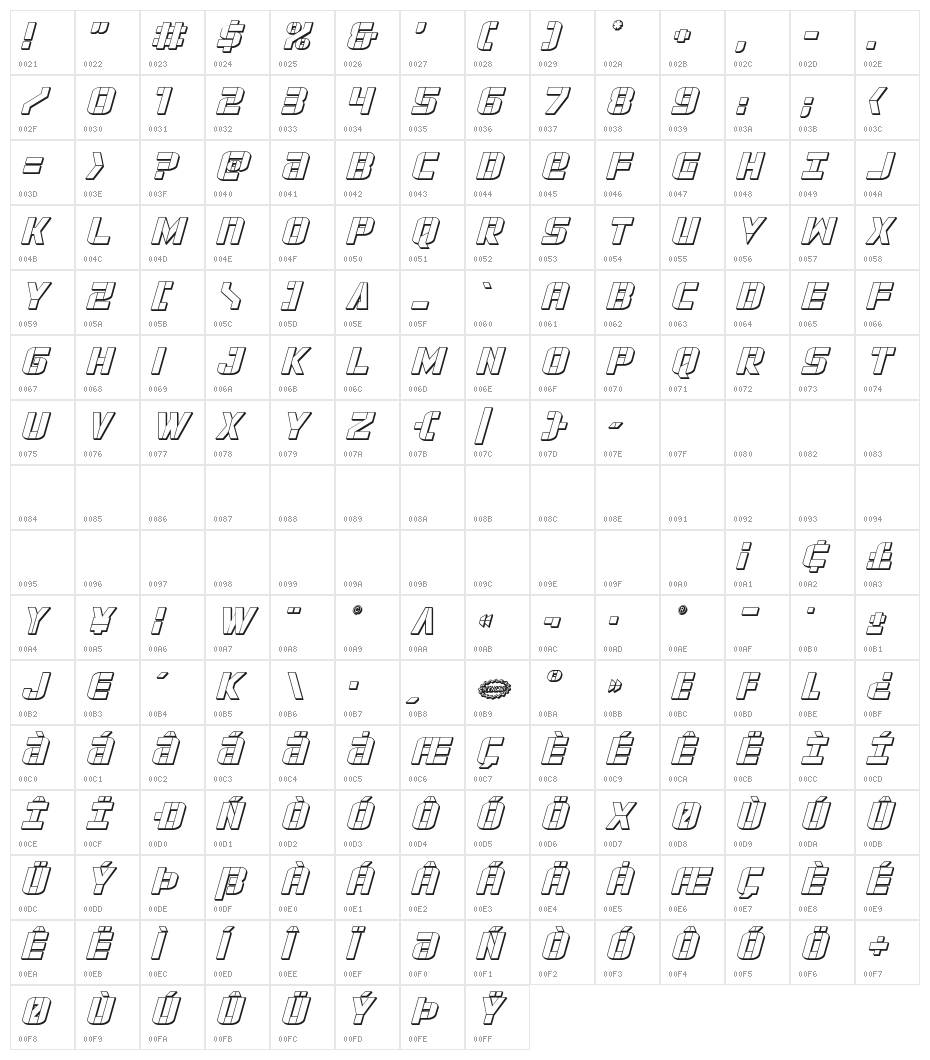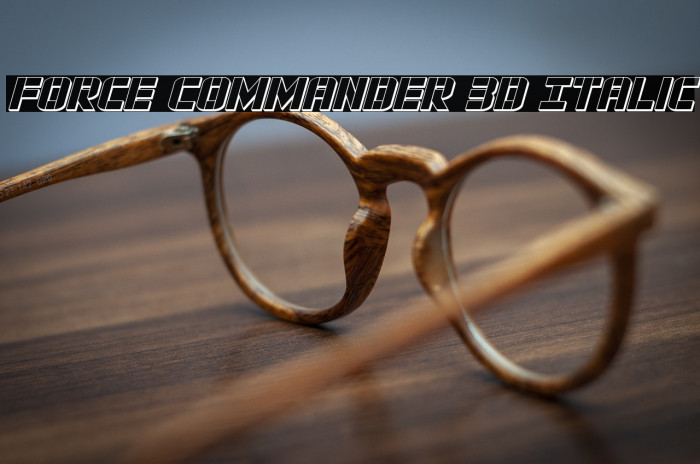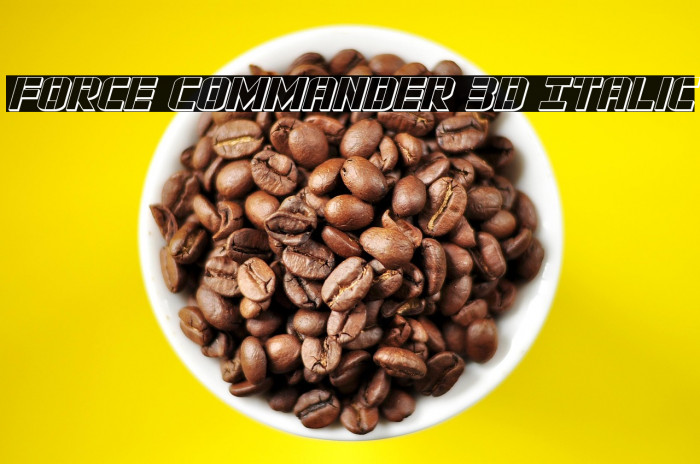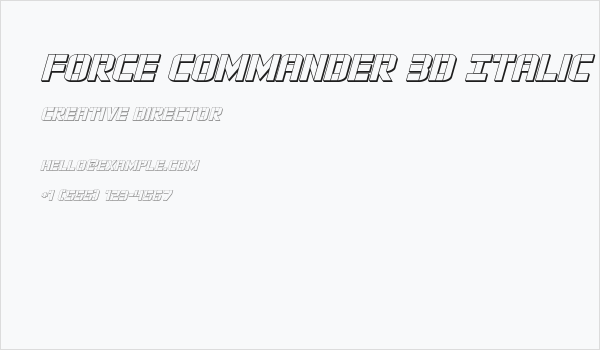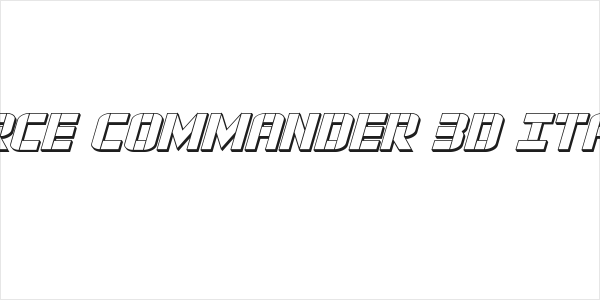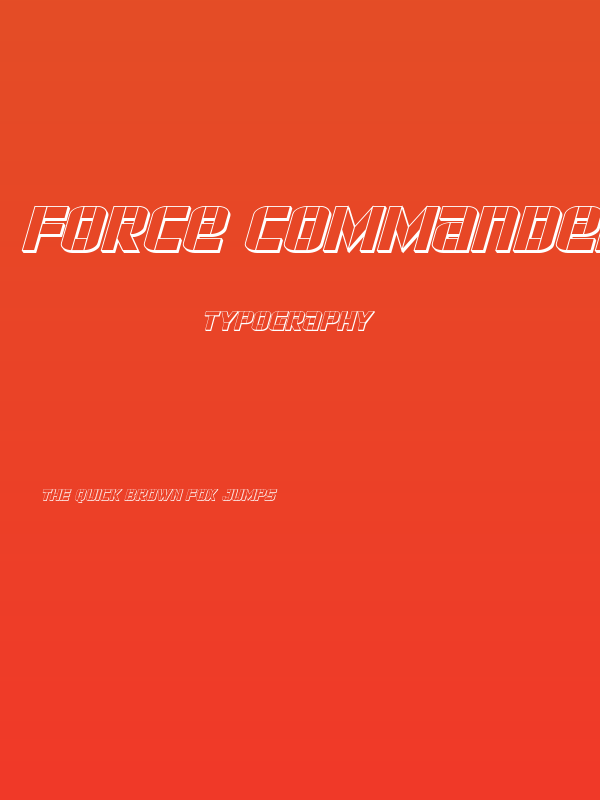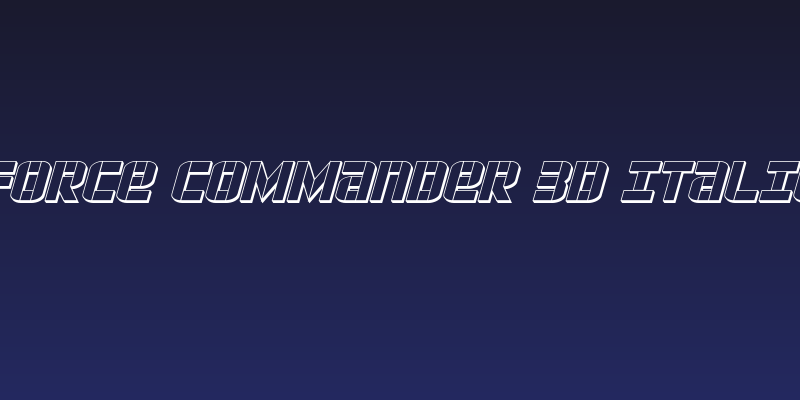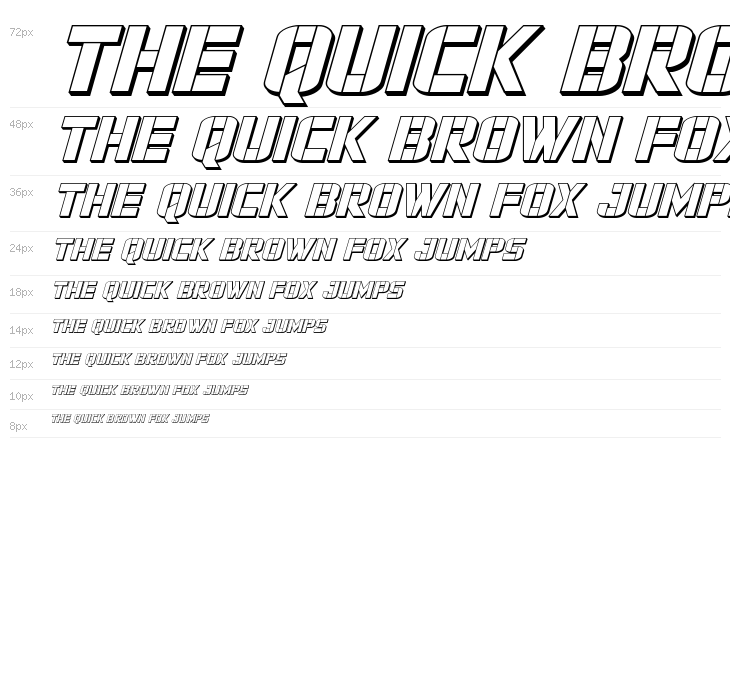
Force Commander 3D Italic Font
Force Commander 3D Italic Description
This font features a bold, three-dimensional design with an italic slant, creating a dynamic and futuristic appearance. The characters are outlined, giving them a distinctive, layered look that adds depth and visual interest. The geometric shapes and sharp angles contribute to a modern and tech-inspired aesthetic. Each letter and number is crafted with precision, maintaining a consistent style throughout the set. The special characters complement the overall design, ensuring versatility in various applications.
| Proposed Projects | Ideal for video game titles, tech branding, futuristic posters, and digital media projects. |